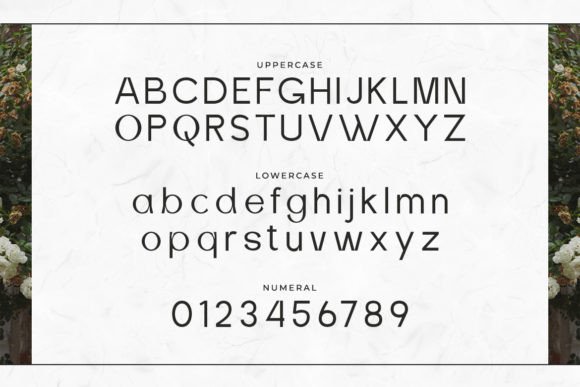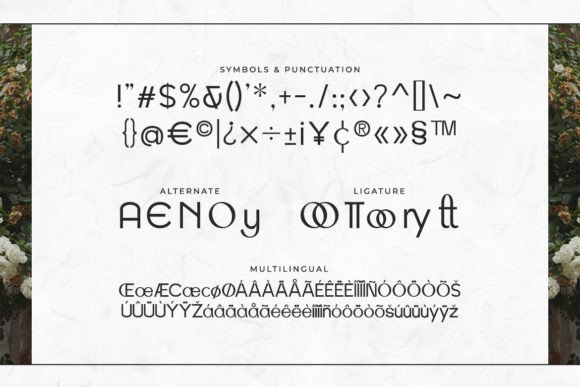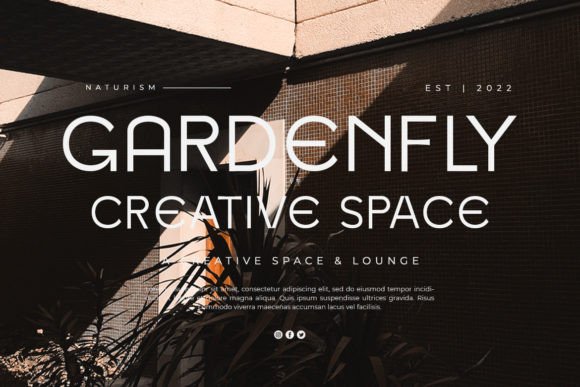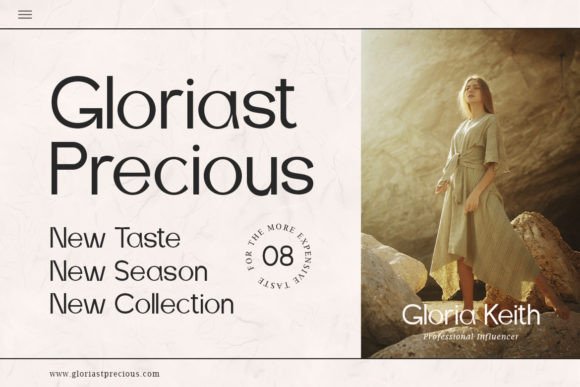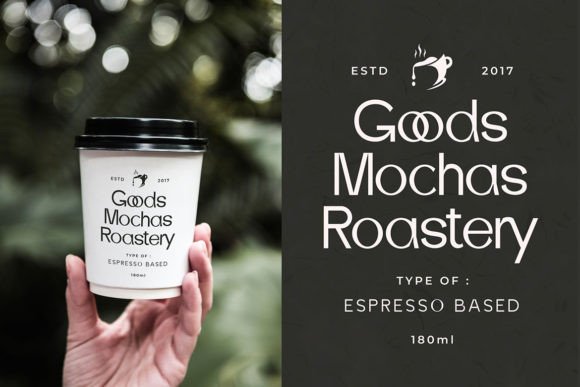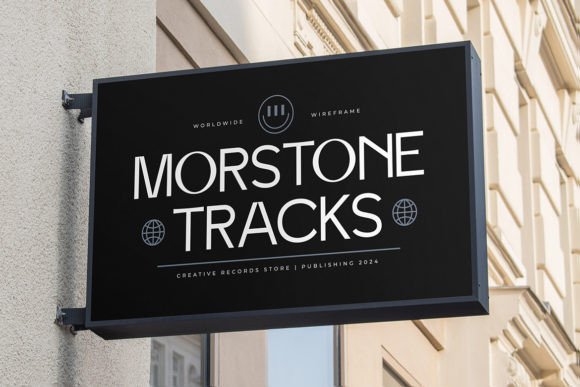
Introduction to Memorick Font
Remember that moment when you finally landed the perfect design for your client’s campaign? The one that stood out among the rest, leaving everyone speechless? It’s the culmination of hours, sometimes days, of brainstorming, sketching, and tweaking – all for the sake of a single, striking visual. And what’s the key to making that moment happen? The right tools, of course! A high-quality font can make all the difference, elevating your creative project from good to great. That’s where the Memorick Font comes in – a modern sans display font that’s sure to be a game-changer.
Whether you’re a seasoned designer or just starting out, the Memorick Font is an invaluable addition to your design library. Its clean lines and sleek aesthetic make it perfect for any project, from logos to social media graphics. And with its transparent background option, you can easily incorporate it into your designs without any hassle. Plus, it’s available for free download, making it an accessible resource for designers of all levels.
So why settle for an ordinary font when you can have an extraordinary one? The Memorick Font is a design resource that’s sure to take your creative projects to the next level. With its high quality and versatility, it’s an asset you won’t want to miss out on.
Key Features of Memorick Font
- High-quality, unique design elements ideal for creative projects requiring a distinctive look
- Memorick Font is a versatile design tool that can be used for a wide range of creative projects, from branding and marketing materials to digital art and illustrations
Honest Review: Memorick Font
I recently had the chance to work with the Memorick Font, and I’m excited to share my thoughts on this design resource. As a designer, I’m always on the lookout for high-quality fonts that can elevate my creative projects. The Memorick Font certainly delivers.
One of the standout features of this font is its versatility. With a transparent background, it’s perfect for creating visually appealing designs that really pop. The font itself is clean and modern, making it ideal for a wide range of creative projects.
- High-quality design with a modern aesthetic ✨
- Transparent background for added flexibility ✨
- Perfect for creative projects, including digital design and graphic design ✨
- Limited character set, which may be a concern for some designers ⚠️
- No bold or italic variations available ⚠️
Overall, I’m impressed with the Memorick Font. It’s a great addition to any designer’s toolkit, and its free download makes it an excellent value. While it may have some limitations, its versatility and high-quality design make it a worthwhile resource for any creative project.
Designing with Memorick Font
When designing with the Memorick Font, consider using a transparent background to make it blend seamlessly with your design. Experiment with different font sizes and styles to get the most out of it.
Some common use cases for the Memorick Font include creating logos, headings, and titles. Tips for getting the most out of it include experimenting with different font combinations and adjusting font sizes for optimal readability.